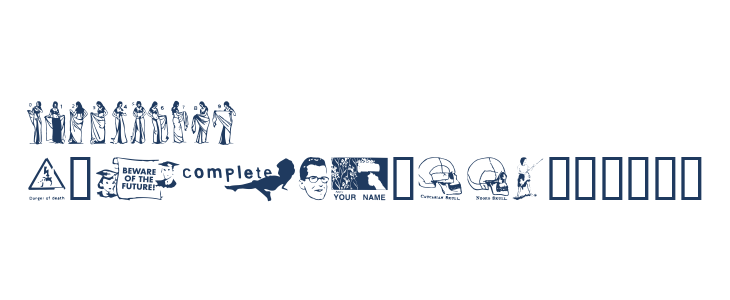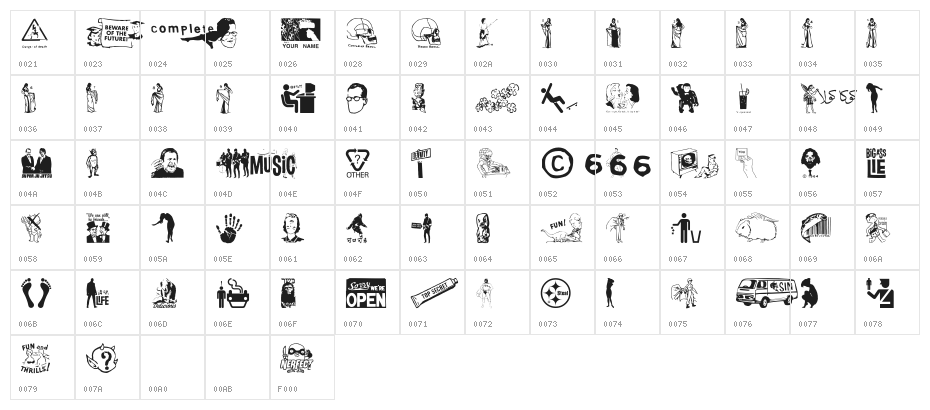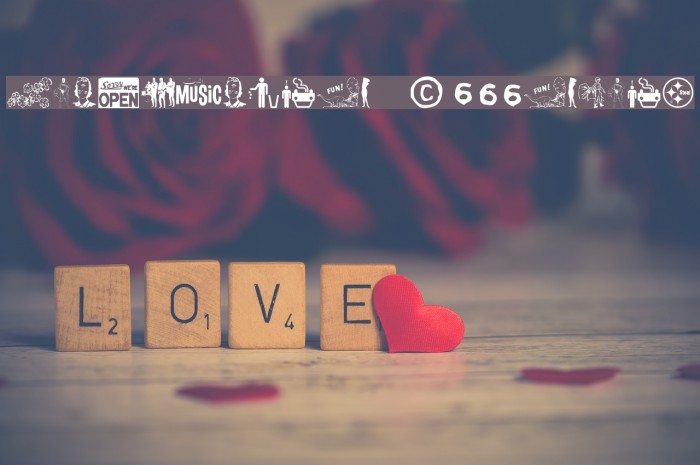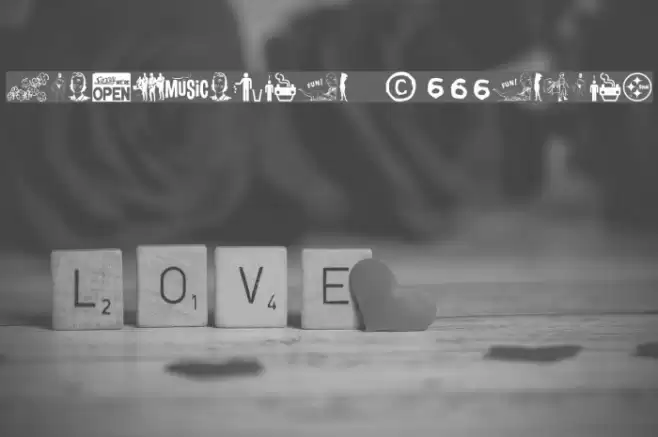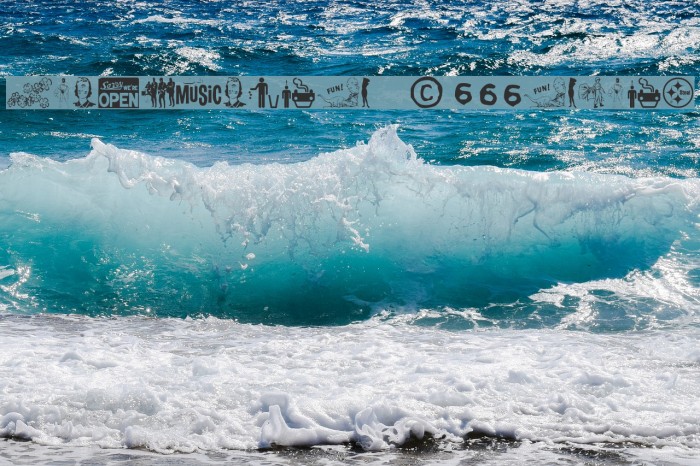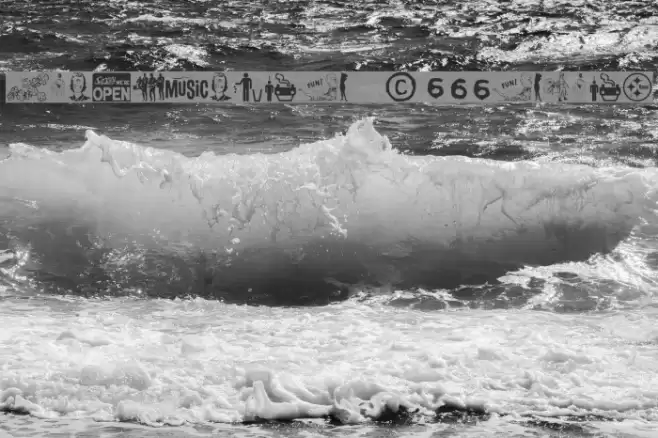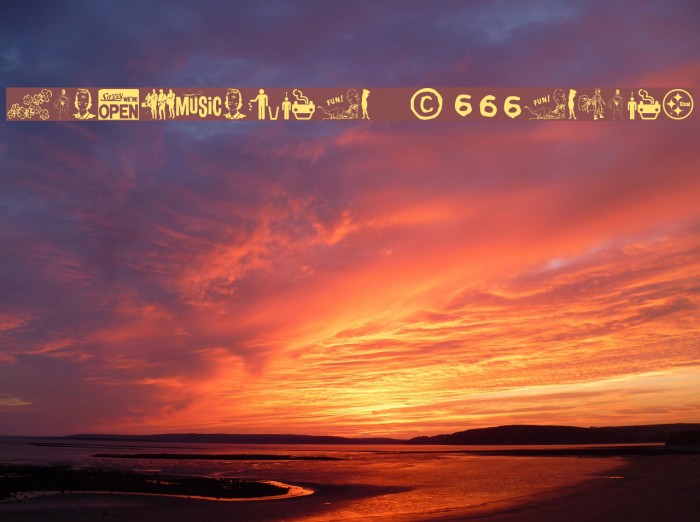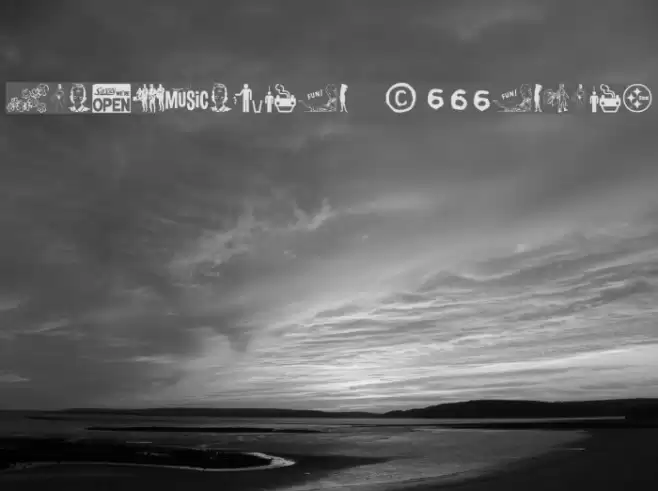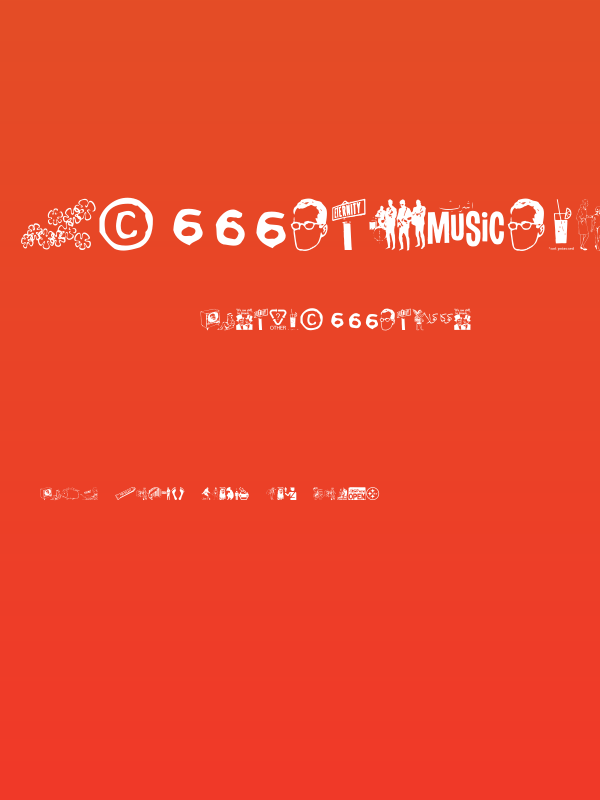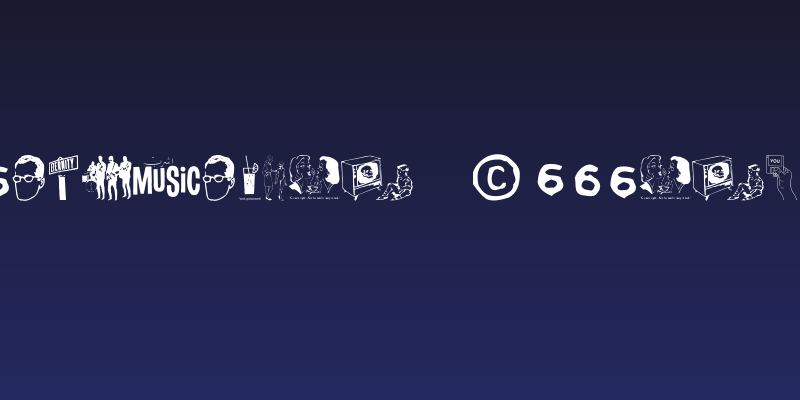
CrapMagnet Returns Font
CrapMagnet Returns Description
This collection features a diverse array of graphic elements and symbols rather than a traditional font. It includes various illustrations, icons, and text snippets that convey a playful and eclectic style. The imagery ranges from humorous and satirical to abstract and conceptual, incorporating elements like people, animals, signs, and pop culture references. The design is bold and eye-catching, with a mix of solid black and white contrasts. Each character or symbol is unique, offering a wide range of visual expressions that can be used creatively in various projects.
| Overall Style | Eclectic, Playful, Bold |
| Use Case | Logos, Posters, Album Covers, Digital Art |
| Proposed Projects | Ideal for creative projects such as posters, album covers, zines, and digital art where a mix of humor and bold visual impact is desired. |